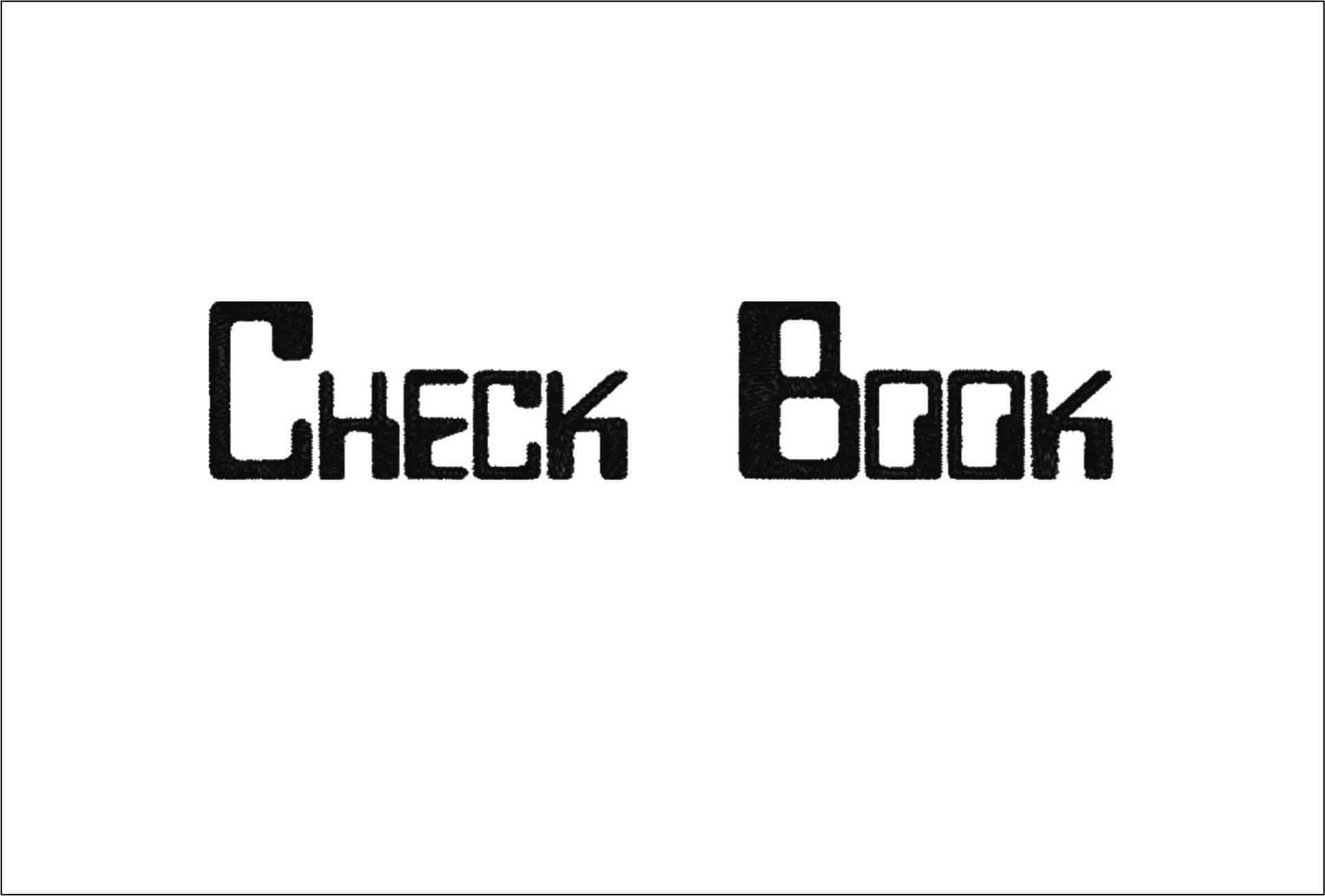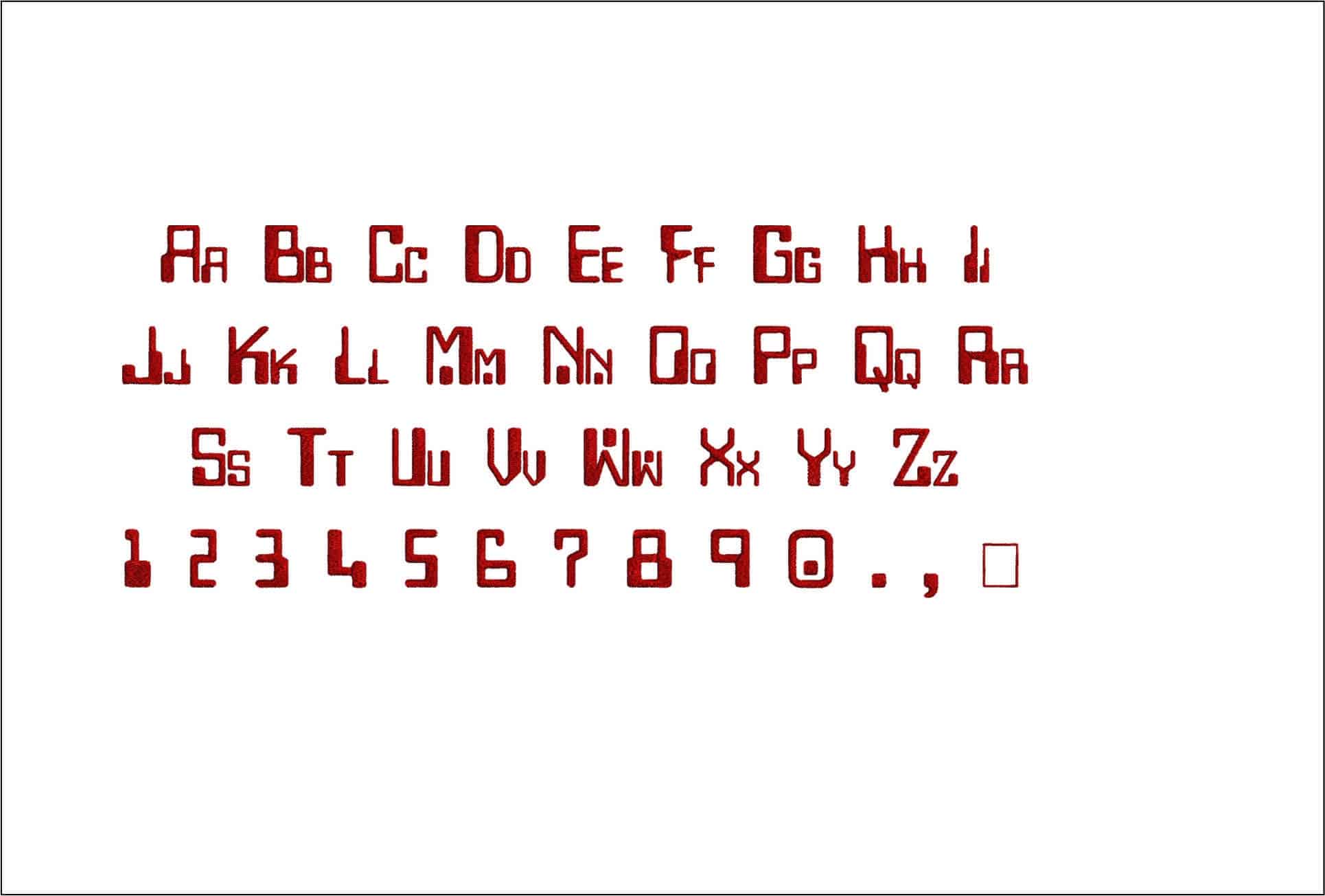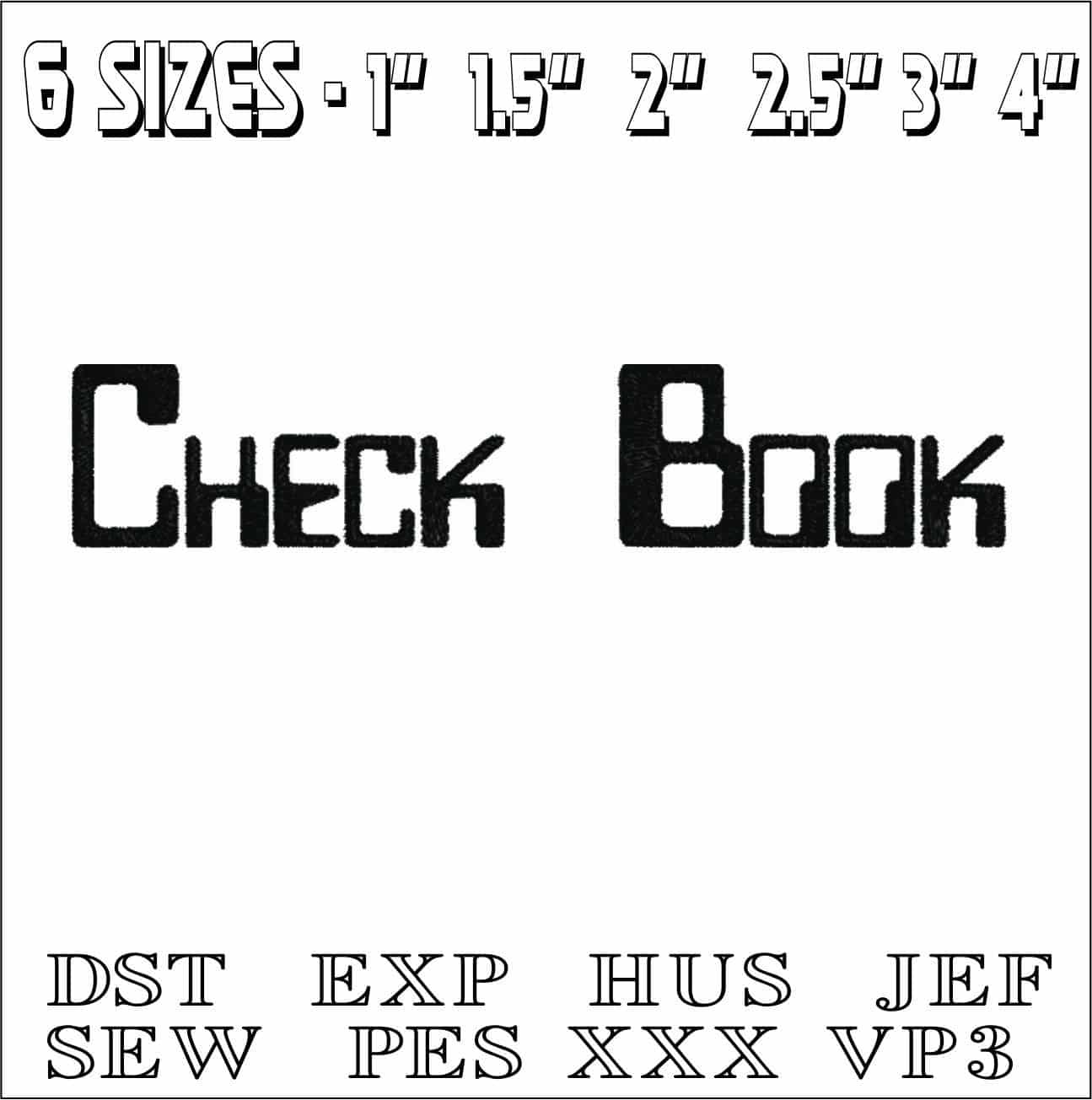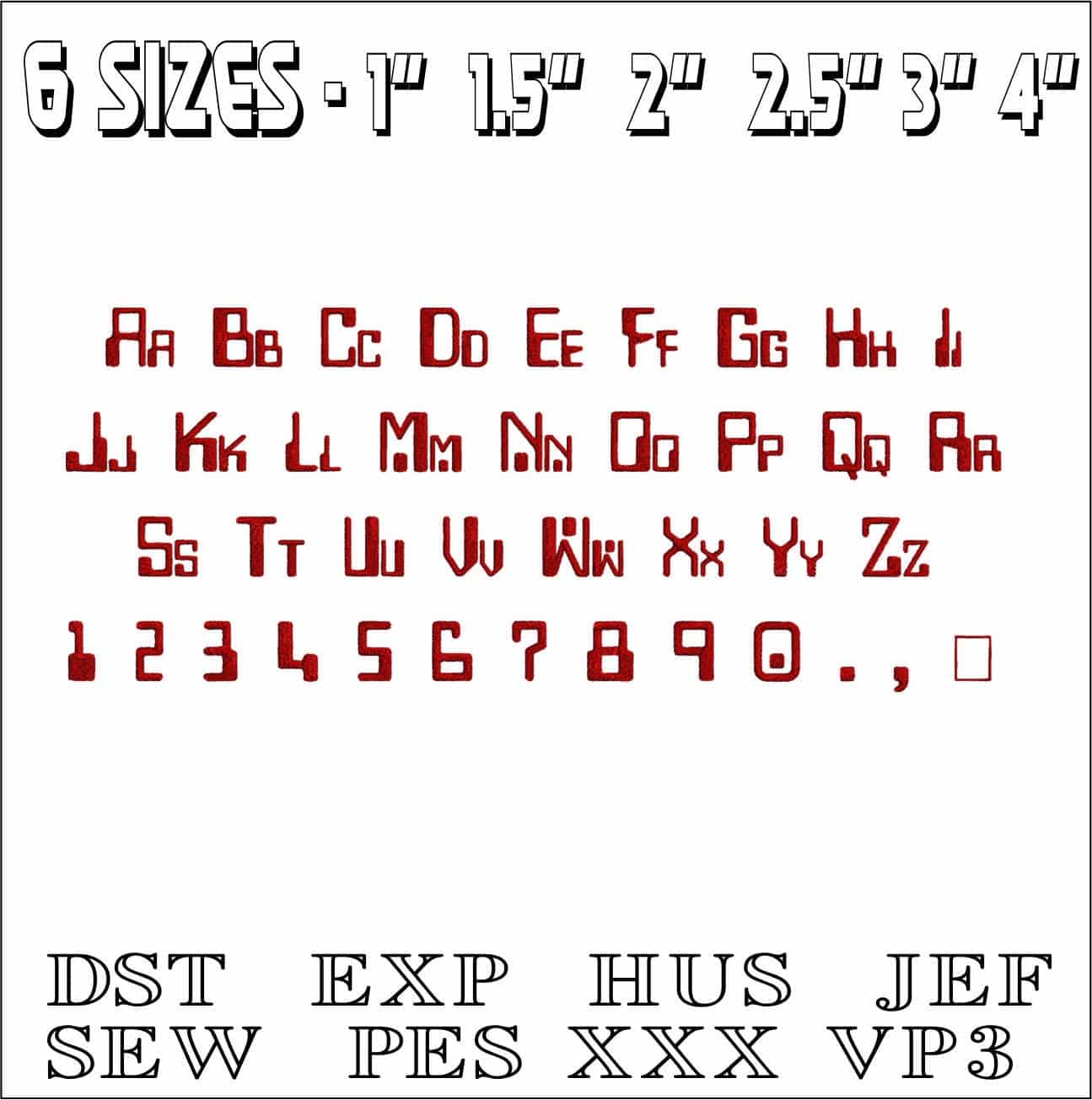
Check Book Font Embroidery Font Set - 1" 1.5" 2" 2.5" 3" and 4" - Machine Embroidery Alphabet Font - instant download
Check Book Font Embroidery Font Set - 1" 1.5" 2" 2.5" 3" and 4", Individual Alphabet Font - instant download
This is such a great alphabet for names and sayings! Beautiful and classy! Also available in larger sizes: